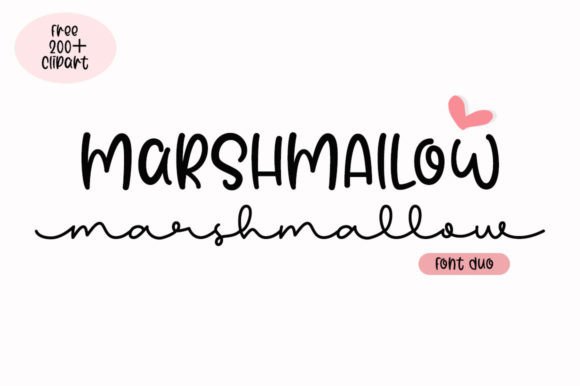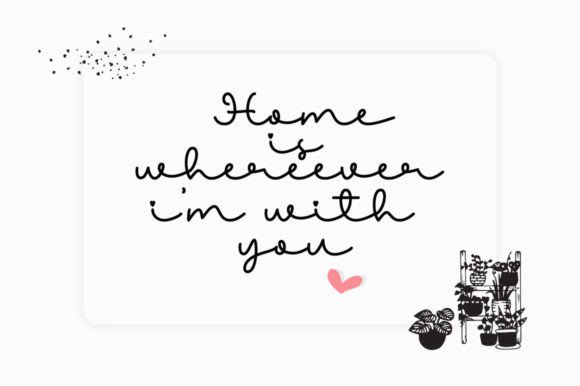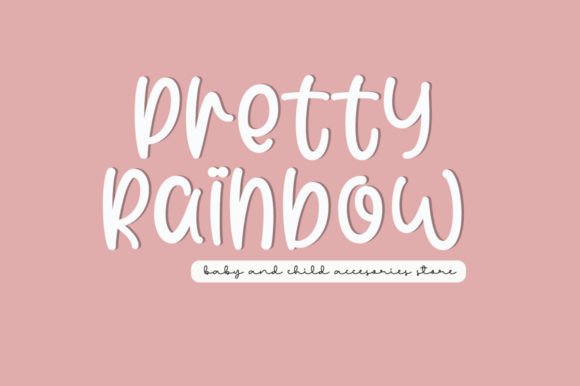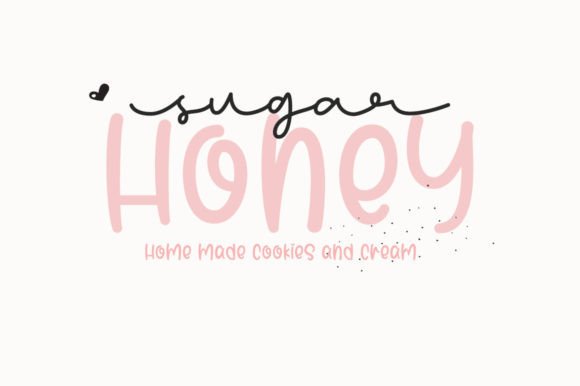
Marshmallow Duo Font
About the Marshmallow Duo Font
Presenting Marshmallow Duo Font, a unique and stylish typeface that will make your work stand out. Marshmallow is a versatile duo font (handwritten sans serif and monoline script). It will add a luxury spark to any design project that you wish to create! This font is PUA encoded which means you can access all of the amazing glyphs and ligatures with ease!
Marshmallow Duo’s playful yet elegant personality makes it ideal for branding projects targeting a young, sophisticated audience, particularly in areas like fashion, beauty, or lifestyle. It excels in headlines, short taglines, and logos, adding a touch of handwritten charm without sacrificing readability. However, its script style is less suitable for extended body text or UI elements where legibility is paramount.
For optimal visual impact, pair the sans serif with a clean, geometric sans-serif like Montserrat for a modern feel, or a classic serif like Garamond for a touch of timeless elegance. The script style pairs well with a simple, neutral sans-serif for contrast, allowing it to shine as a highlight element. Avoid pairing it with other highly decorative fonts to prevent visual clutter.
Consider using the script font sparingly to accentuate key words or phrases within designs using the sans-serif, maintaining a balance between playful energy and refined sophistication.
Marshmallow Duo Font Usage Examples
Marshmallow Duo Font Example